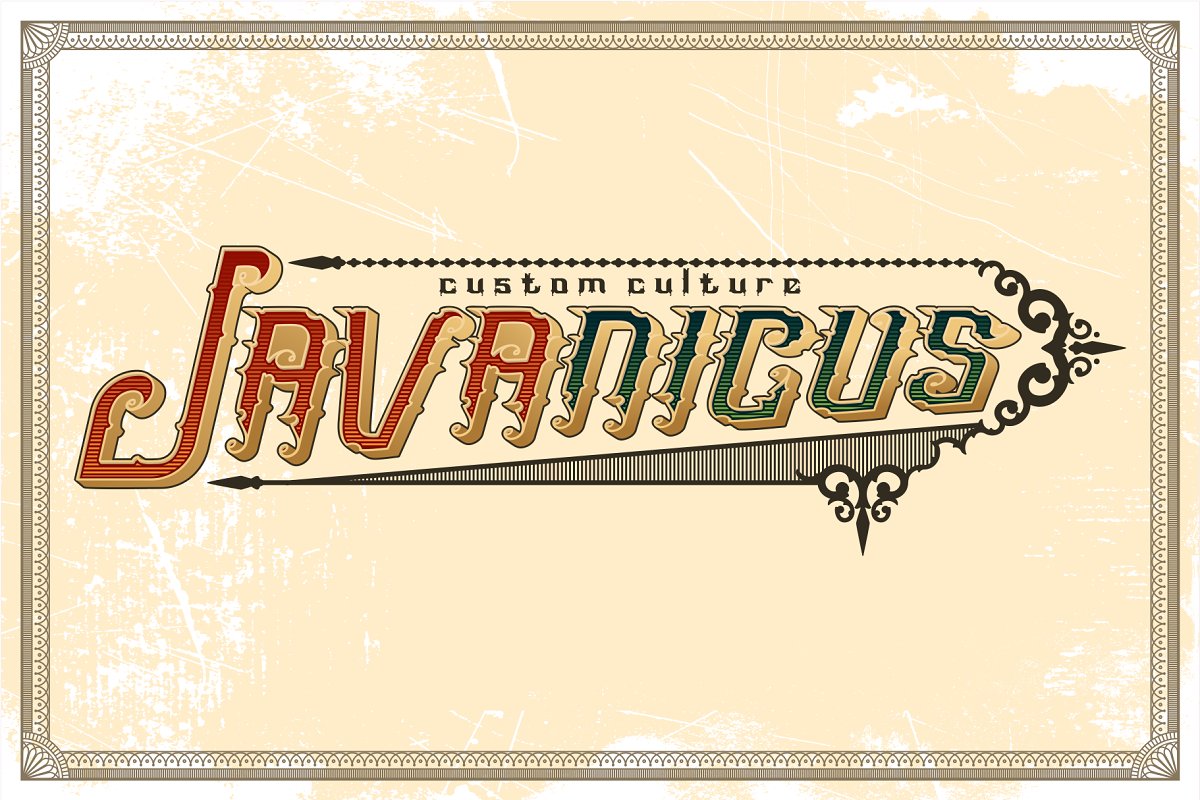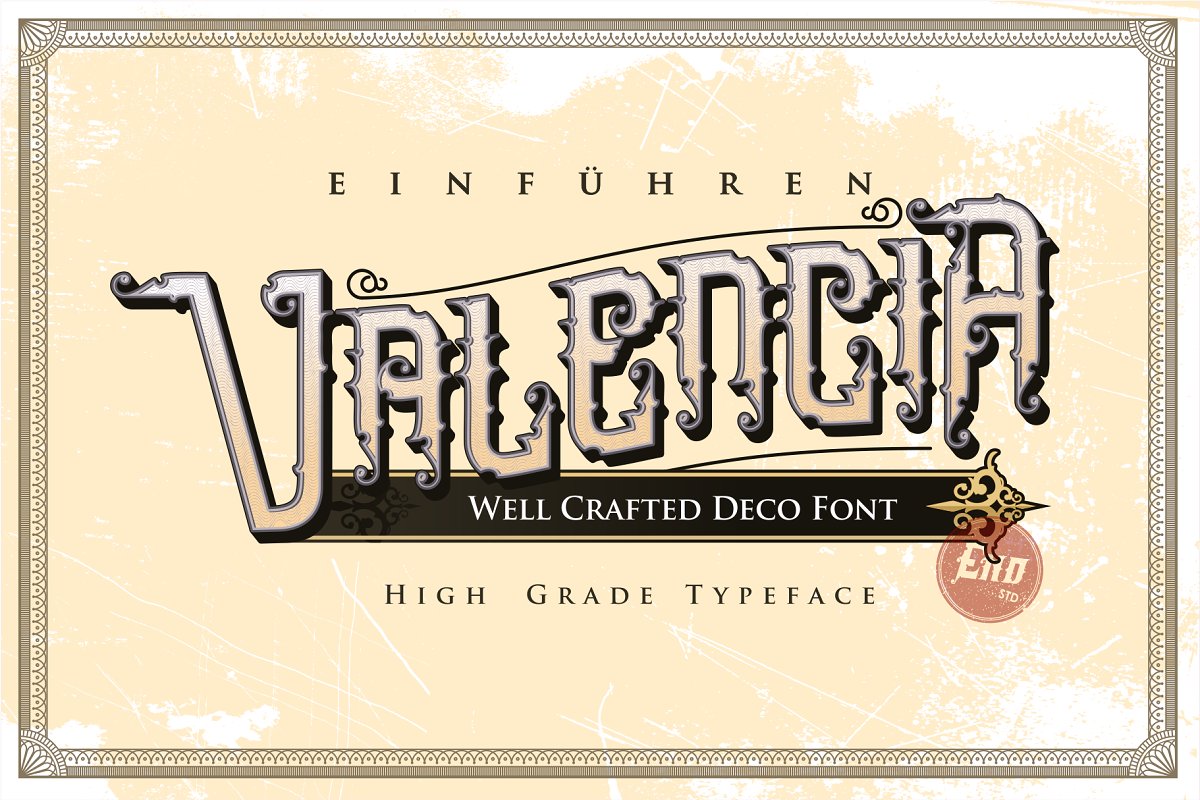
Omnivorous Typeface
Omnivorous is Decorative font inspired from Victorian style typeface. Traditional Style with 10 Font Style you can use to make Letterhead, T-shirt, Label or anything you want. Just Unzip The ZIP to get the OTF file and get everything done perfectly… Boom.